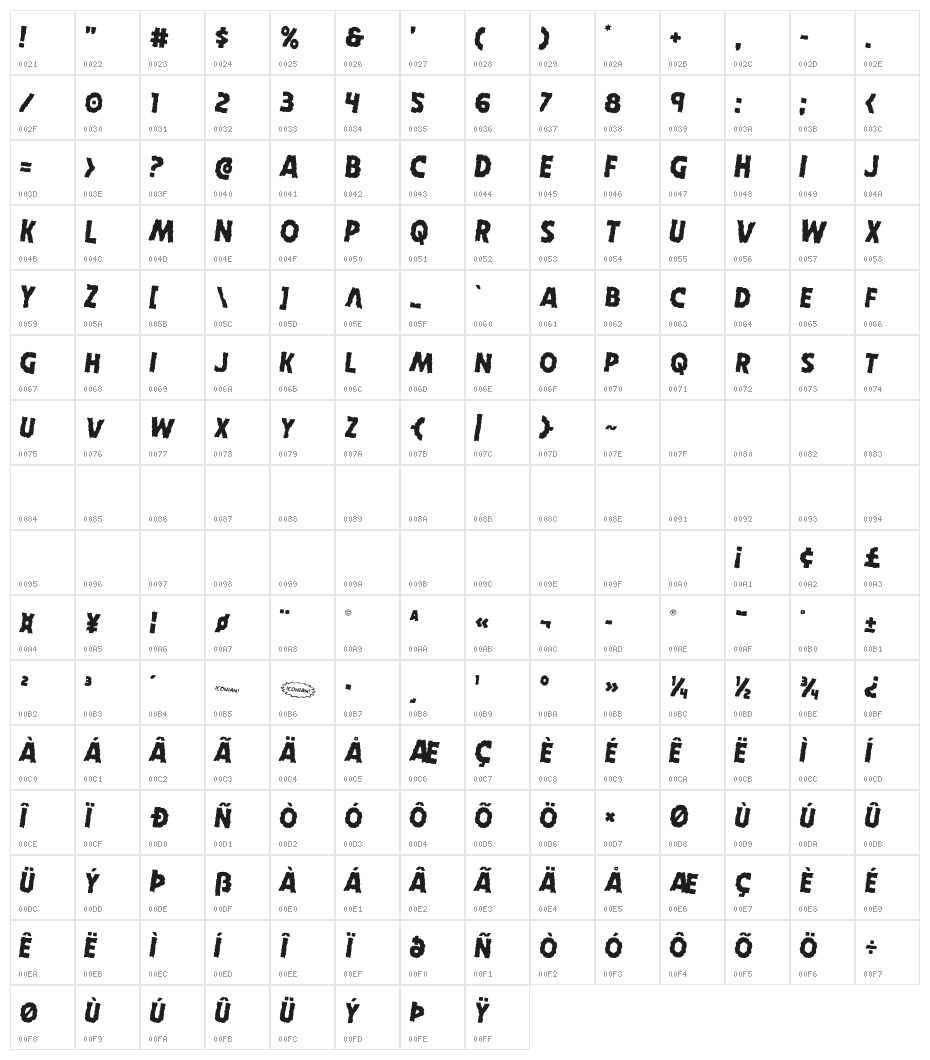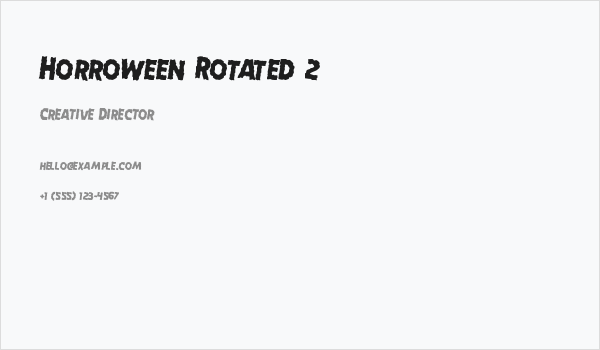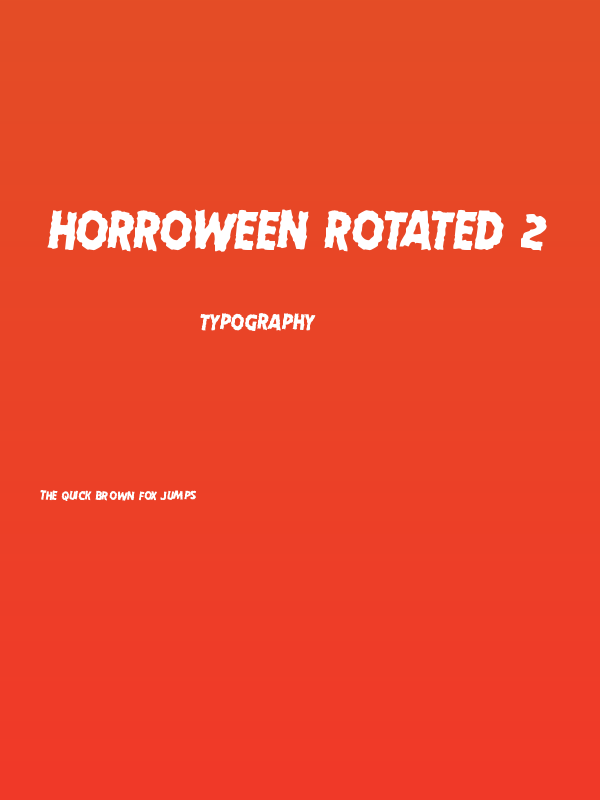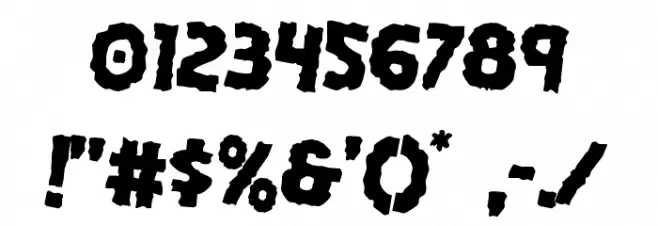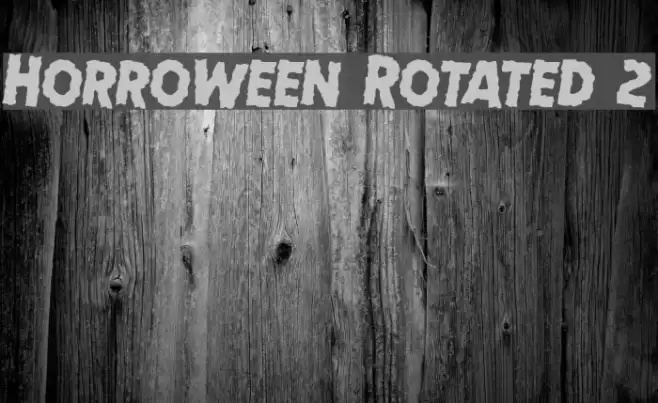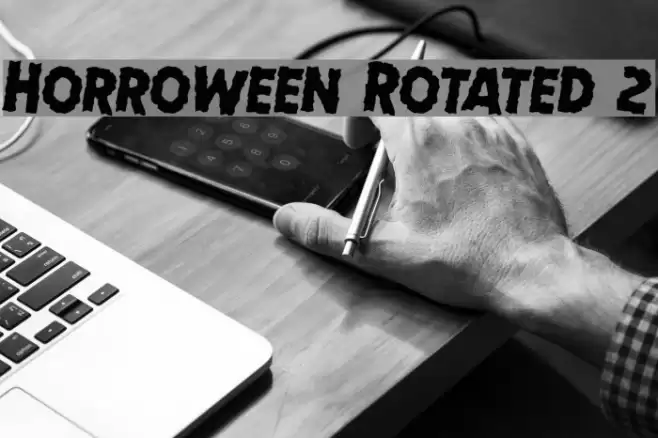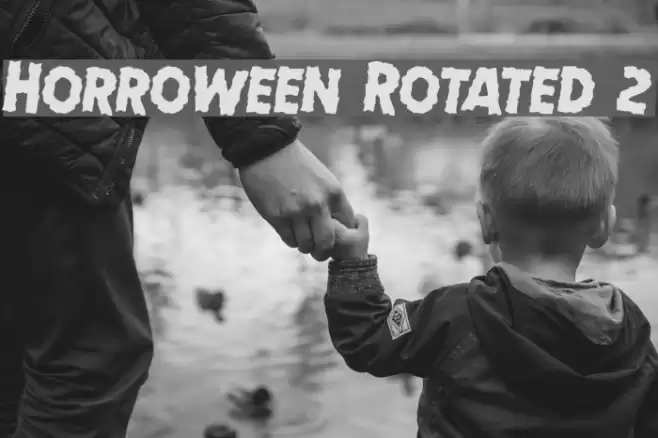
Horroween Rotated 2 Font
Horroween Rotated 2 Description
This font features a bold and jagged design, reminiscent of torn paper or rough edges, giving it a distinctly eerie and unsettling appearance. The characters are irregularly shaped, with uneven strokes that create a sense of chaos and unpredictability. This style is particularly effective for themes related to horror or Halloween, as it evokes a sense of fear and mystery. The uppercase and lowercase letters maintain a consistent style, with numbers and special characters following the same jagged aesthetic. The overall impression is one of intensity and drama, making it suitable for eye-catching designs.
| Proposed Projects | Ideal for Halloween posters, horror movie titles, spooky event invitations, and themed merchandise. |